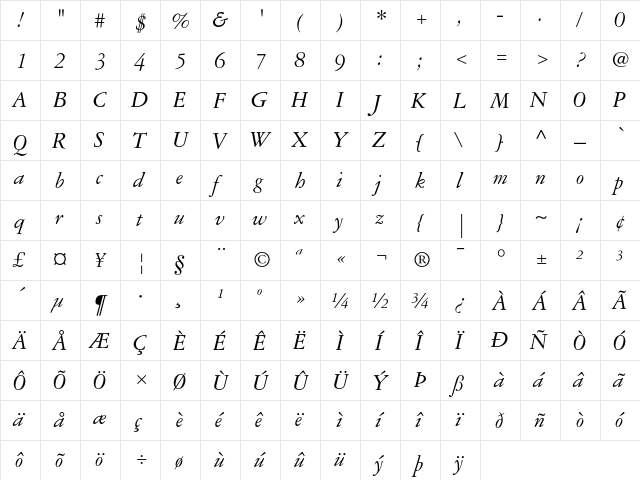
Garamond Three Italic
Design Context for Garamond Three Typeface
Garamond Three takes a measured approach to typography — its balanced proportions and neutral character make it a reliable workhorse for both digital and print work. The dynamic lean of this cut emphasises speed and emphasis in any layout.
Pro Tip: Use Garamond Three for emphasis, pull quotes, and subheadings where its slanted energy can add rhythm to the layout.